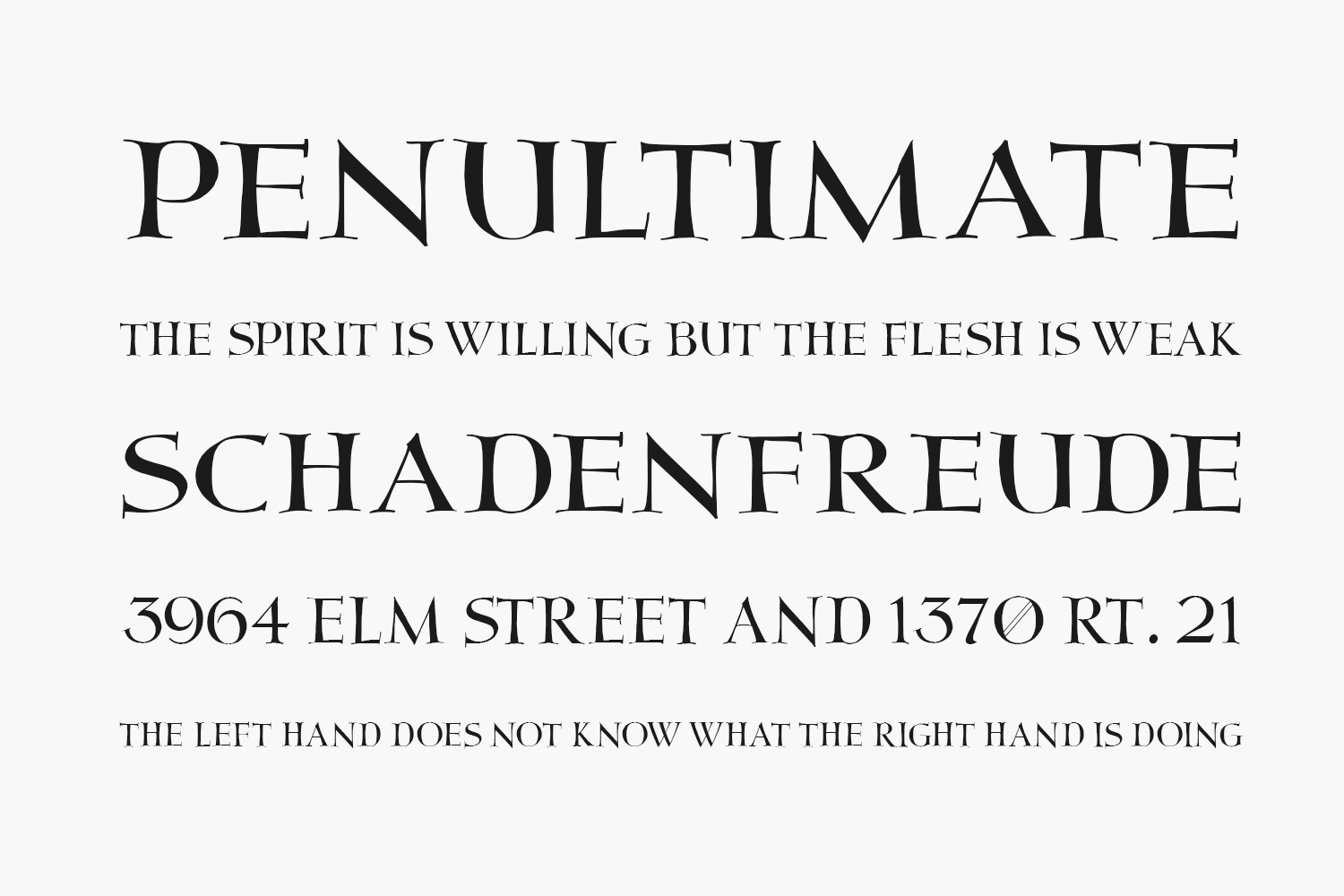
Moderno Free Font is a casual serif font that will look stunning on every poster, banner, or print! Add it to your most creative ideas and notice how it makes them come alive. Moderno Free Font was designed by Vladimir Nikolic and is free for personal use only. Please purchase the full version for commercial use.
Designed by Vladimir Nikolic